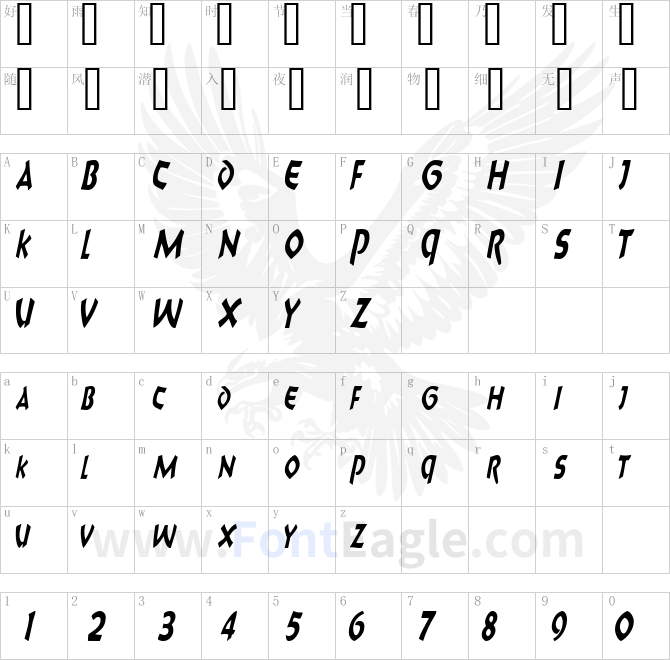
8BallScriptSCapsSSK Italic.ttf Font Image
8BallScriptSCapsSSK Italic.ttf Base Font Information
- Font name:8BallScriptSCapsSSK
- Font Subfamily ID:Macromedia Fontographer 4.1 8BallScriptSCapsSSK Italic
- Font Full Name:8BallScriptSCapsSSK Italic
- Font Version:Macromedia Fontographer 4.1 8/10/95
- Postscript:8BallScriptSCapsSSKItalic
8BallScriptSCapsSSK Italic.ttf Characters Sample